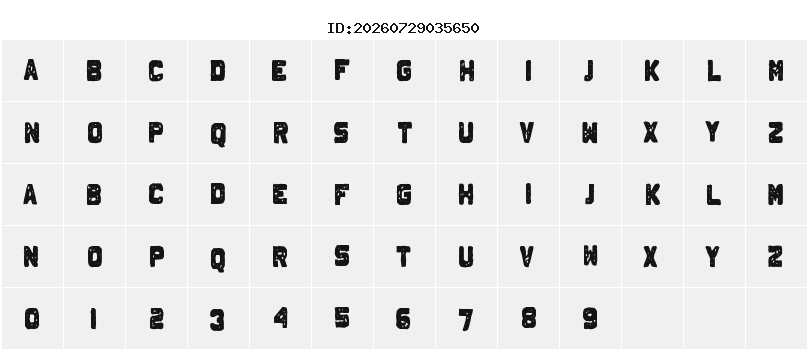
• Font Name: Johnny Homicide
About Johnny Homicide.ttf
Johnny Homicide.ttf is a modern, elegant sans-serif font designed for ultimate readability and visual harmony. Perfect for branding, headlines, web design, and print materials.